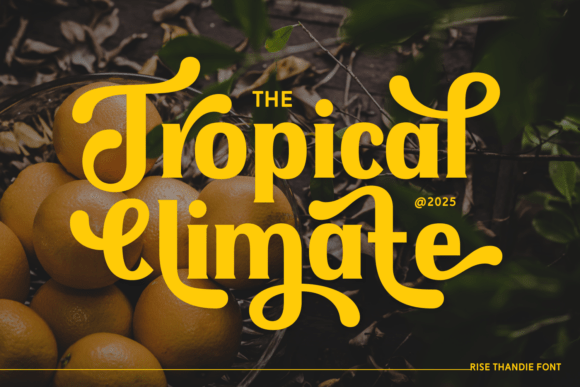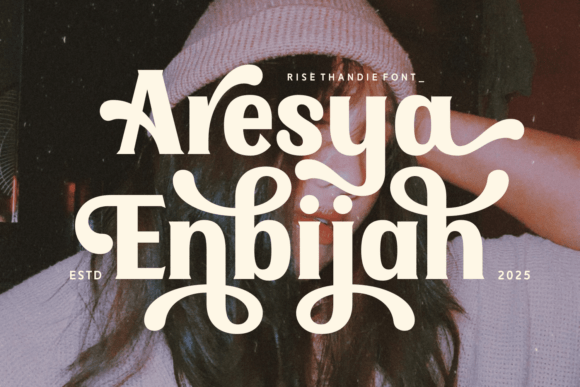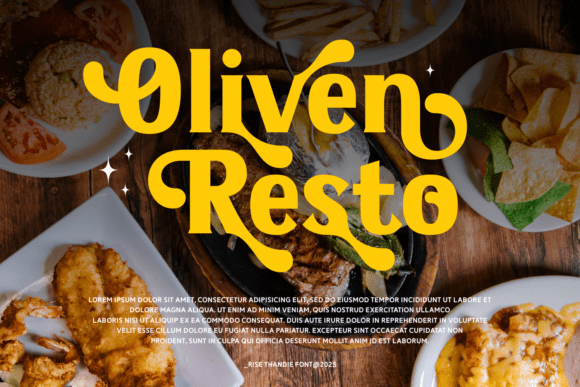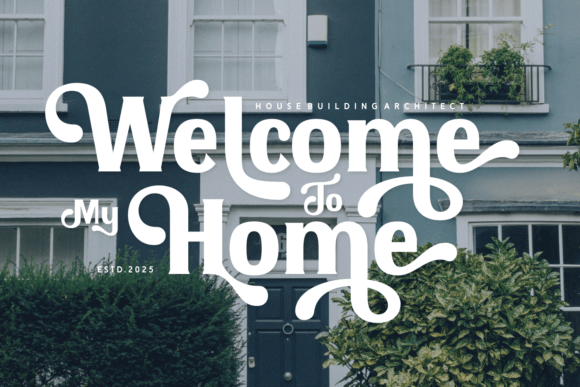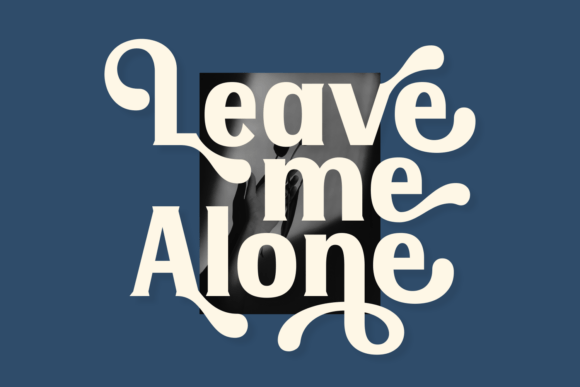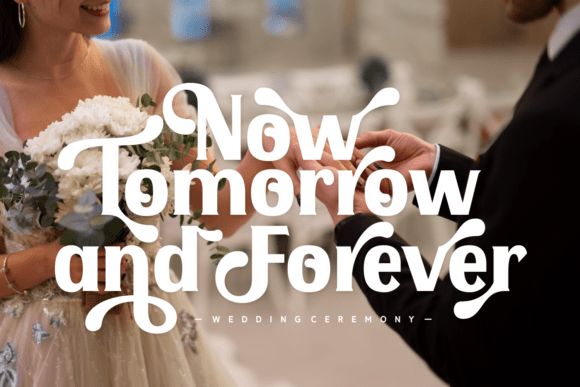
Introduction to Rise Thandie Font
Introducing Rise Thandie Font – where the world of elegance marries modernity.
This serif font elegantly presents a blend of tradition and contemporary styles, perfect for creating sophisticated aesthetics in your designs Graceful in every curve and stroke, Rise Thandie is distinctly feminine, effortlessly adding a touch of gentleness and magnetism to your design project.
Key Features of Rise Thandie Font
Why Choose Rise Thandie Font?
Rise Thandie Font offers exceptional quality and versatility, making it a valuable addition to your design toolkit. Whether you’re creating for personal projects or commercial use, Rise Thandie Font delivers professional results.